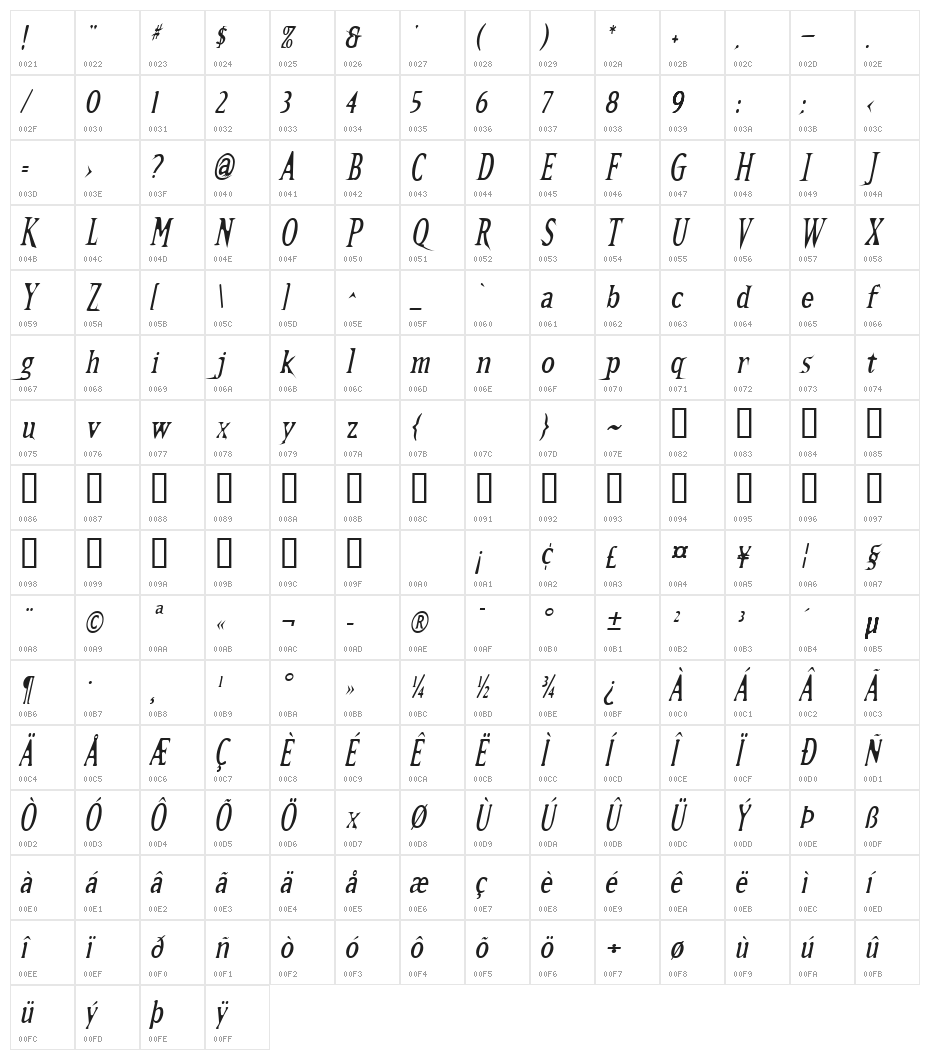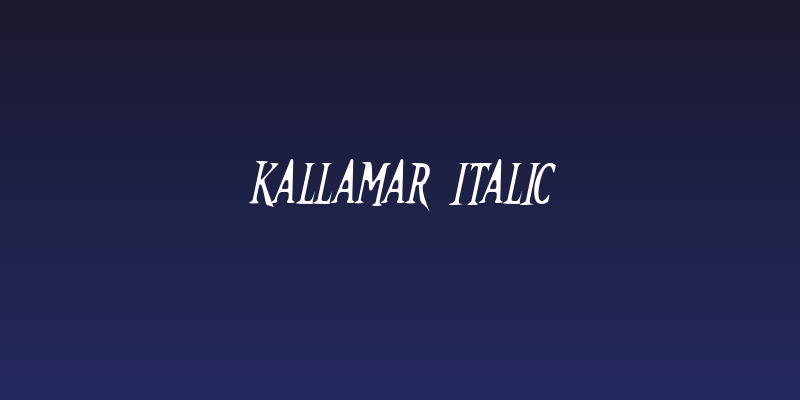
Kallamar Italic Font
Kallamar Italic Description
This font features a dynamic and elegant italic style, characterized by its flowing and slightly exaggerated curves. The uppercase letters exhibit a sophisticated flair with sharp serifs and a distinct slant, giving them a sense of motion and energy. The lowercase letters maintain a consistent style, with smooth transitions and a harmonious balance between thick and thin strokes. The numerals are designed to complement the letters, with a similar italic slant and a refined appearance. Special characters are thoughtfully integrated, maintaining the overall aesthetic of the font. This typeface is ideal for projects that require a touch of elegance and sophistication.
| Proposed Projects | Ideal for wedding invitations, luxury branding, editorial design, and elegant packaging. |